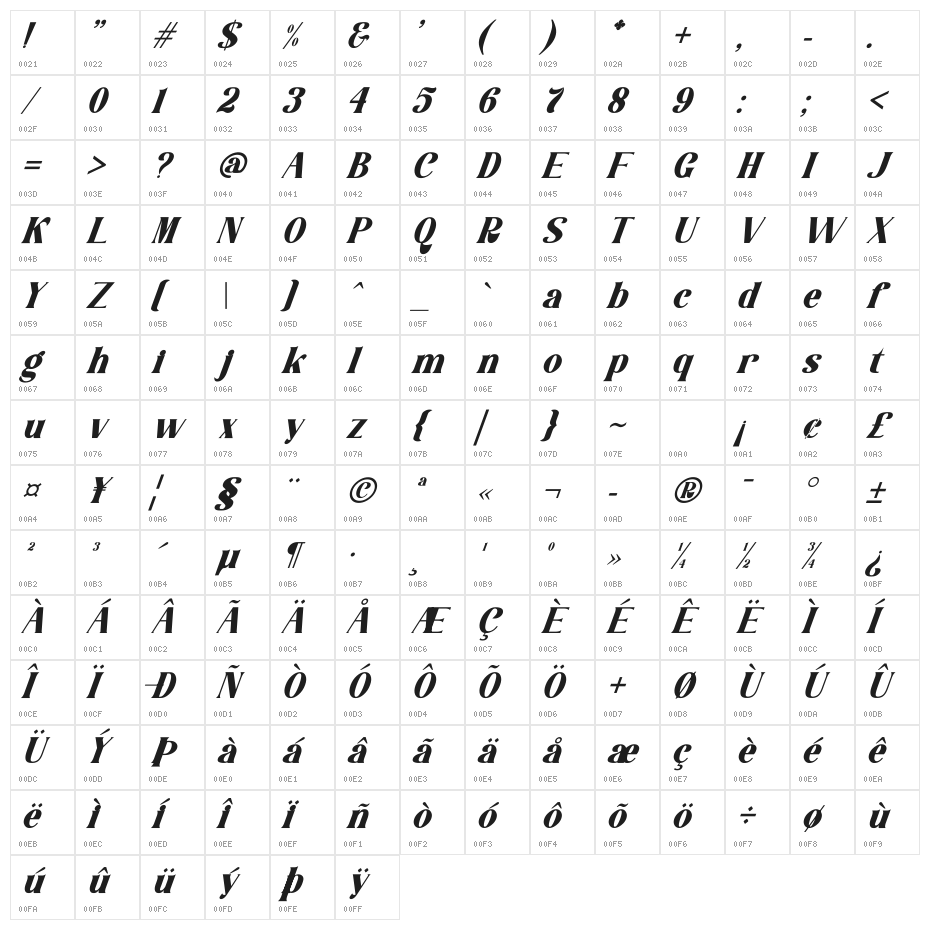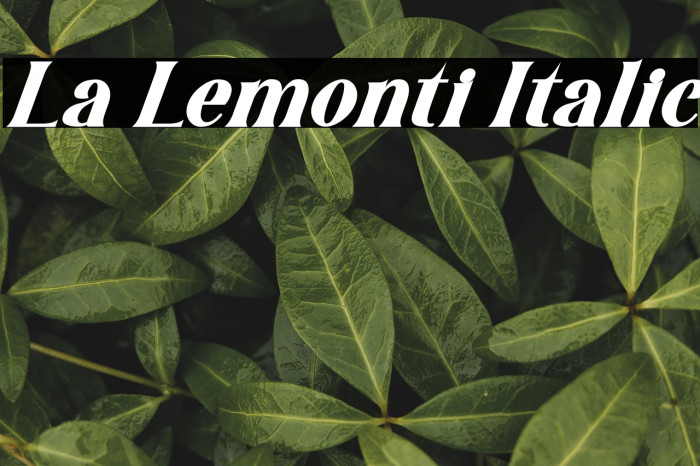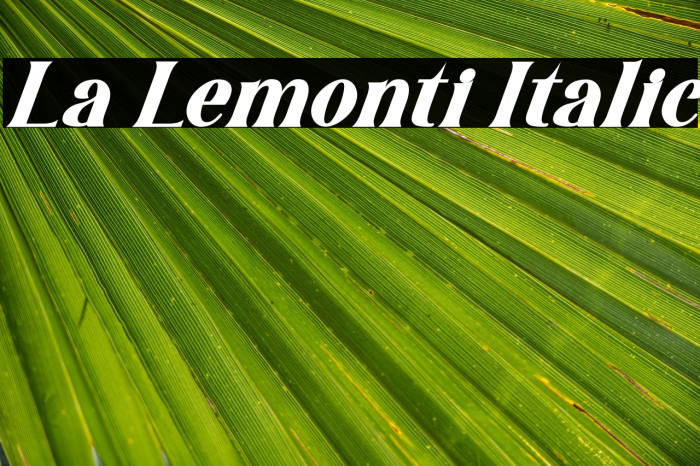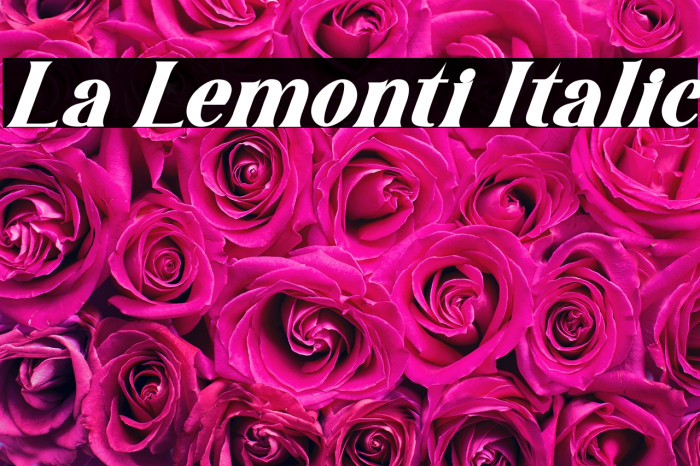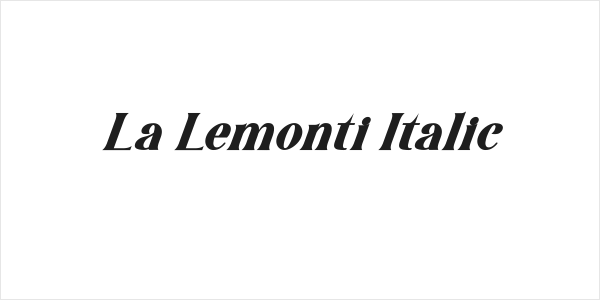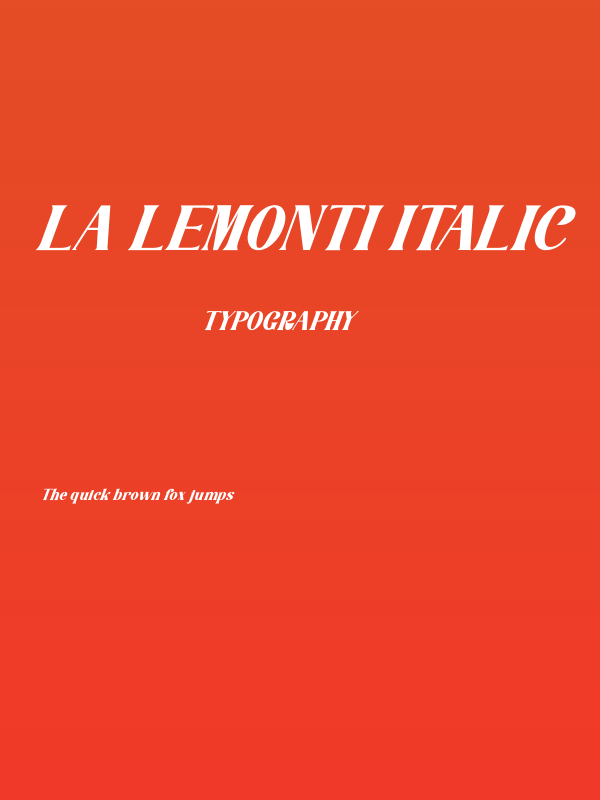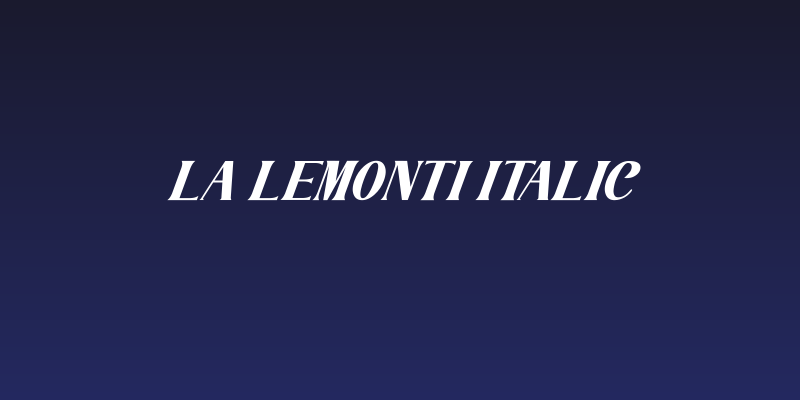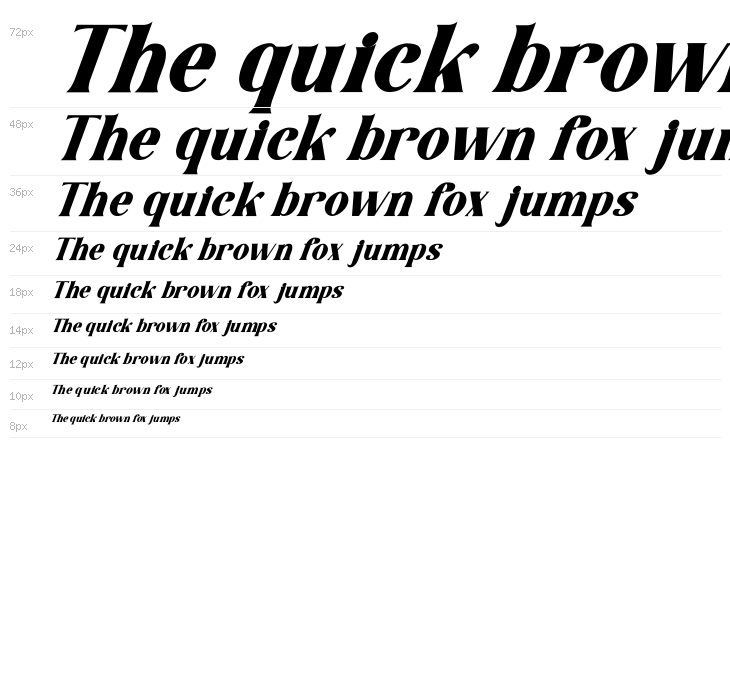
La Lemonti Italic Font
La Lemonti Italic Description
This font exhibits a dynamic and elegant italic style, characterized by its pronounced slant and high contrast between thick and thin strokes. The uppercase letters have a strong presence with sharp serifs, while the lowercase letters maintain a fluid and graceful appearance. The numerals are bold and consistent with the overall style, ensuring readability. Special characters are designed with the same attention to detail, making them suitable for a variety of uses. The font's overall aesthetic is both classic and modern, making it versatile for different design projects.